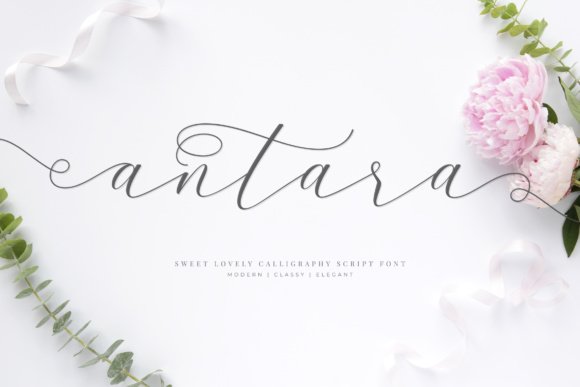
The Art of Elegant Design: Discovering the Beauty of Antara Script Font
As a designer, have you ever found yourself lost in the world of typography, searching for that perfect font to bring your creative vision to life? I know I have. One moment that still stands out in my mind was when I stumbled upon the Antara Script Font – a game-changer in the world of elegant and feminine design.
With its distinctive curves and beautiful swashes, the Antara Script Font is a must-have for any designer looking to add a touch of sophistication to their work. Whether you’re creating a wedding invitation, a branding logo, or a beautiful piece of art, this font is sure to impress. The Antara Script Font is a valuable tool for designers, offering endless possibilities for creativity and self-expression.
Key Features of Antara Script Font
- Font Family: Antara Script Font is a beautiful, elegant script font designed for use in various creative projects.
- Unique Characteristics: Features elegant, flowing connections between letters, giving it a sophisticated and luxurious feel, making it perfect for branding, invitations, and other high-end designs.
Antara Script Font Review
Overall, I’m really enjoying working with the Antara Script Font. Here are some of the things that stand out:
- ✨ Elegant and sophisticated feel: The Antara Script Font has a beautiful, handwritten quality that’s perfect for creating a sense of luxury and refinement.
- ✨ Wide range of applications: This font is suitable for a variety of projects, from fashion and beauty branding to wedding invitations and art prints.
- ✨ Beautiful ligatures: The Antara Script Font has some lovely ligatures that add to its charm and make it feel more organic and handwritten.
However, there are a few limitations to be aware of:
- ⚠️ Limited language support: The Antara Script Font only includes support for the Latin alphabet, which may be a problem for projects that require other languages.
- ⚠️ May be difficult to read in small sizes: The Antara Script Font is best used at larger sizes, as it can become difficult to read at smaller sizes.
Overall, I think the Antara Script Font is a great addition to any designer’s toolkit. While it may have some limitations, its elegant feel and wide range of applications make it a versatile and useful choice for a variety of projects.
Antara Script Font is perfect for creating elegant and sophisticated designs. To get the most out of it, use it in combination with other elegant fonts, and experiment with different font sizes and styles to create visual interest.
Antara Script Font is ideal for:
- Luxury branding and packaging
- Editorial and magazine designs
- Wedding and event signage
Alternatives to Antara Script Font
Great Vibes is a beautiful, modern script font perfect for creating a sense of elegance and sophistication. It’s ideal for use in wedding invitations, luxury branding, and high-end advertising. Great Vibes is more refined and polished compared to Antara Script Font, making it a better choice for formal occasions.
Pacifico is a stylish and modern script font inspired by the laid-back vibe of the Pacific coast. It’s perfect for use in beach-themed branding, outdoor advertising, and casual websites. Pacifico is more casual and relaxed compared to Antara Script Font, making it a better choice for informal projects.
Carolyna Pro is a luxurious and elegant script font perfect for creating a sense of sophistication and refinement. It’s ideal for use in high-end branding, luxury packaging, and formal advertising. Carolyna Pro is more delicate and intricate compared to Antara Script Font, making it a better choice for projects that require a touch of elegance.